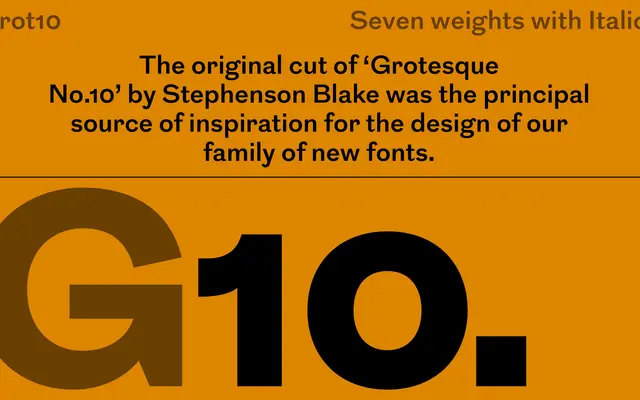
Grot10
A contemporary reworking of Stephenson Blake's Sheffield-foundry Grotesque No.10, expanded across seven weights with condensed cuts originally commissioned for the RIBA Journal.
Drawn from the Stephenson Blake 'Grotesque No.10' as its principal source, this family carries the blunt, utilitarian character of the Victorian British grotesque tradition into a modern type system. Seven weights from Light to Black each have matching italics, while the Condensed subfamily, first cut for the RIBA Journal in 2013, brings tighter width options for magazine and editorial use. The family has since been extended with Semibold, Extrabold and Black to broaden its range for display and identity work.
A contemporary revival based on Stephenson Blake's Victorian-era Grotesque No.10, placing it firmly in the British grotesque tradition with the characteristic single-storey forms and blunt terminals of that lineage.